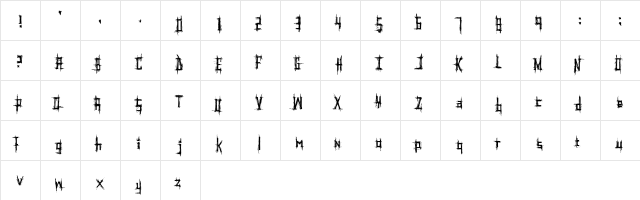
Psychotic Regular
Design Context for Psychotic Typeface
Psychotic is a composed and adaptable typeface that performs quietly and consistently across a wide range of design contexts.